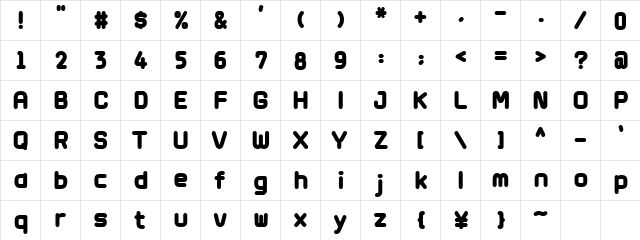
Sweet Doughnuts Regular
Design Context for Sweet Doughnuts Typeface
Sweet Doughnuts is a composed and adaptable typeface that performs quietly and consistently across a wide range of design contexts.
Pro Tip: Use Sweet Doughnuts in both headline and body roles to test its range before committing to a single application.